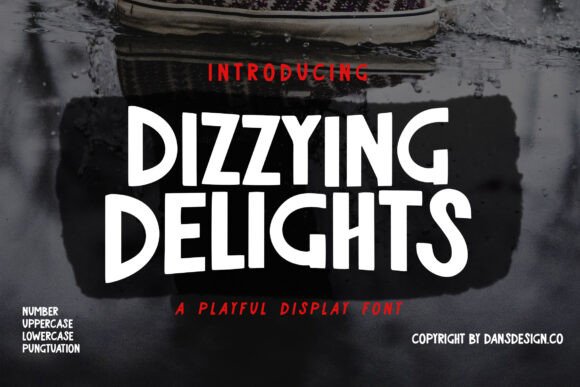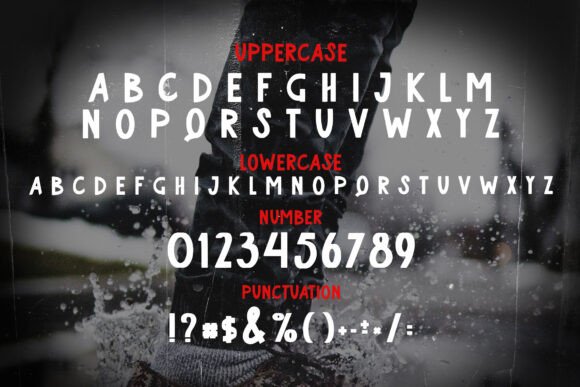
Dizzying Delights Font: A Bold, Playful Display Font for Posters!
About the Dizzying Delights Font
Introducing the Dizzying Delights Font, a beautifully crafted typeface designed to elevate your creative projects. Dizzying Delights is a quirky and playful display font that commands attention. With tall, energetic strokes and a bit of a tilt, this font gives off fun, rebellious vibes—ideal for streetwear branding, energetic headlines, music event posters, and more.
Dizzying Delights excels in large-scale applications like headlines, posters, and logos where its playful energy can shine. It’s also well-suited for packaging designs that target younger demographics or products with a fun, rebellious image. However, its quirky nature and relatively large x-height make it unsuitable for body text or UI elements requiring high readability.
For optimal pairings, consider complementing its energy with a clean sans-serif like Open Sans for body text, providing a stable counterpoint to its dynamic form. Alternatively, a classic serif like Garamond could add a touch of sophistication, creating interesting visual tension. Avoid pairing it with other highly stylized fonts, which would clash rather than complement.
The font’s overall personality is bold and rebellious, yet friendly and approachable. Brands focusing on youth culture, entertainment, or products with a playful, energetic vibe will find it particularly effective.
Dizzying Delights Font Usage Examples
Dizzying Delights Font Example